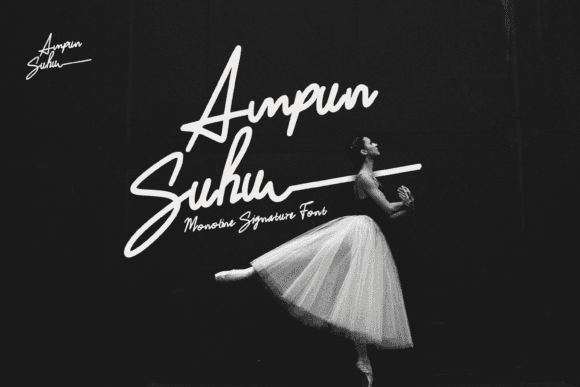
Ampun Suhu Font for Crafting, Logos and Print Projects
Ampun Suhu is a bold and artistic font created for high-visibility crafting and branding. Designed with an organic, hand-drawn edge, it’s ideal for print-based projects that demand personality and style. Its striking letterforms and unique character make it perfect for logos, posters, and merchandise that stand out. This makes Ampun Suhu an anjhay font for creative projects, ensuring that any design captures attention and conveys a strong message. Whether you’re crafting invitations or branding a business, this font adds an unforgettable touch.
This font entity is built for both professional and personal projects where a casual, expressive typeface can create visual interest. Its unique structure and strong identity work well in logos, signage, stickers, and marketing collateral. The versatility of this typeface ensures that it can adapt to various design contexts, making it an essential tool for creatives. Additionally, the household harmony font details enhance its appeal, providing users with a breadth of stylistic options for different applications. Whether you're crafting a playful invitation or a bold advertisement, this font elevates your message with flair.
Ampun Suhu makes it easy to convey energy and authenticity in any design format—from packaging and tags to cards and DIY creations.
- Branding kits and signature logos
- Stickers, signs, and packaging labels
- Print-on-demand products
- Event posters and flyers
- Custom t-shirts, totes, and cards
- Energetic and handcrafted look
- Versatile across print and digital projects
- Instant character for logos and signs
- Ideal for expressive and casual branding
Q: What style is Ampun Suhu font?
A: Ampun Suhu is a handcrafted display font with a casual and expressive tone, perfect for eye-catching craft and branding designs.
Q: Can I use it for logo design?
A: Yes, Ampun Suhu works very well for creating distinctive logos and branded visuals.
Q: Is Ampun Suhu suitable for printed signage?
A: Yes, it performs well in printed signage, labels, and packaging thanks to its bold styling and legibility.